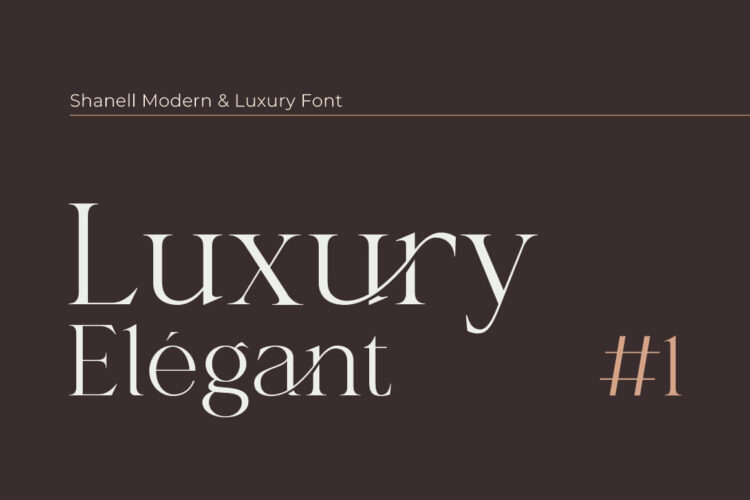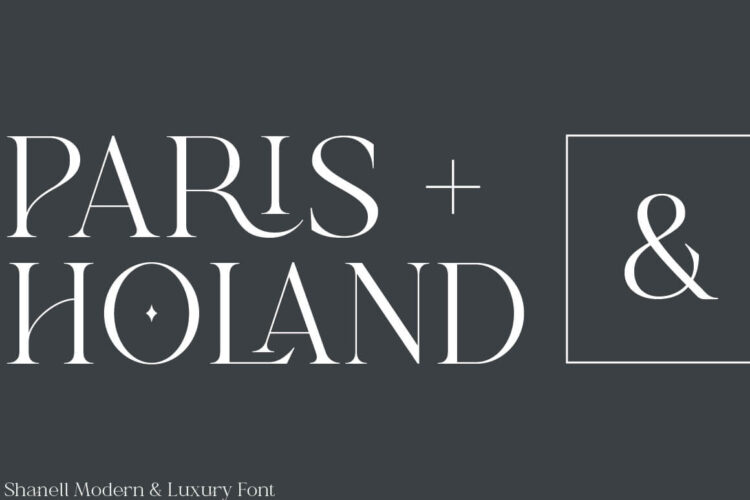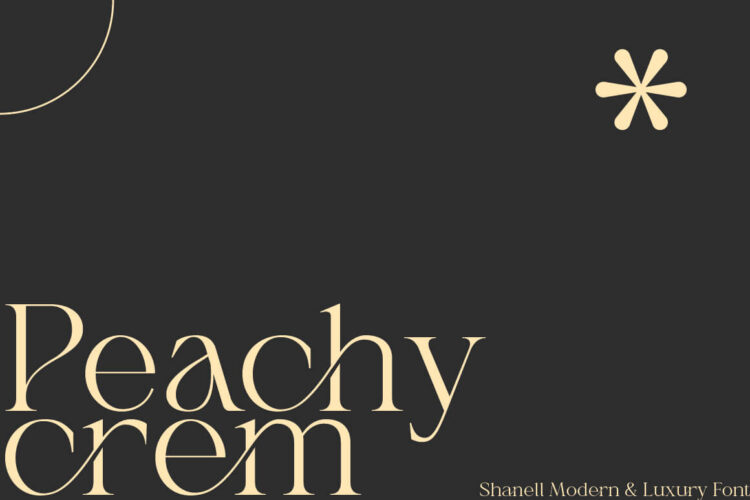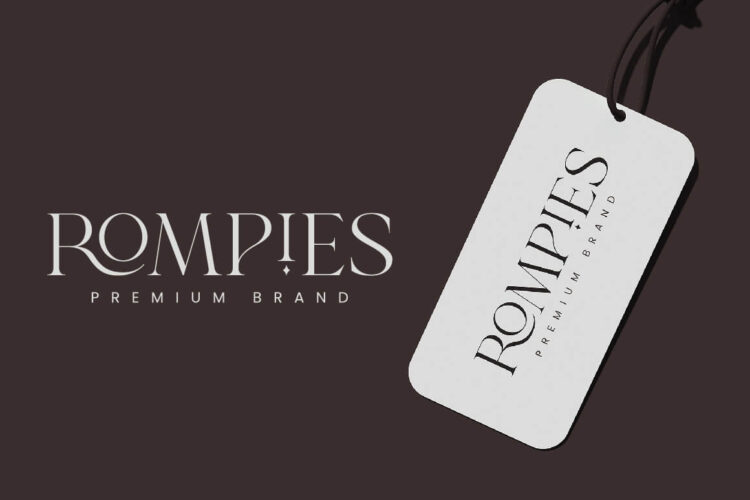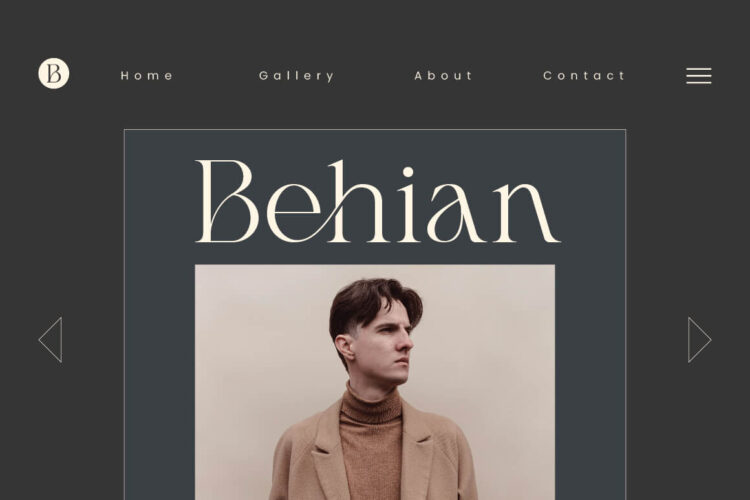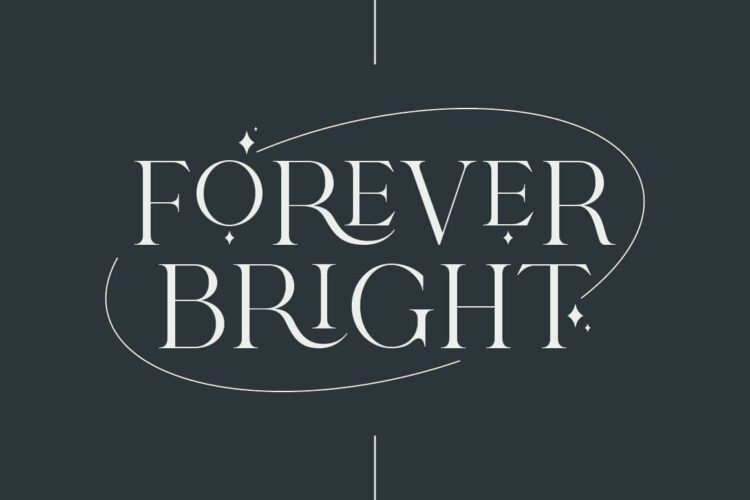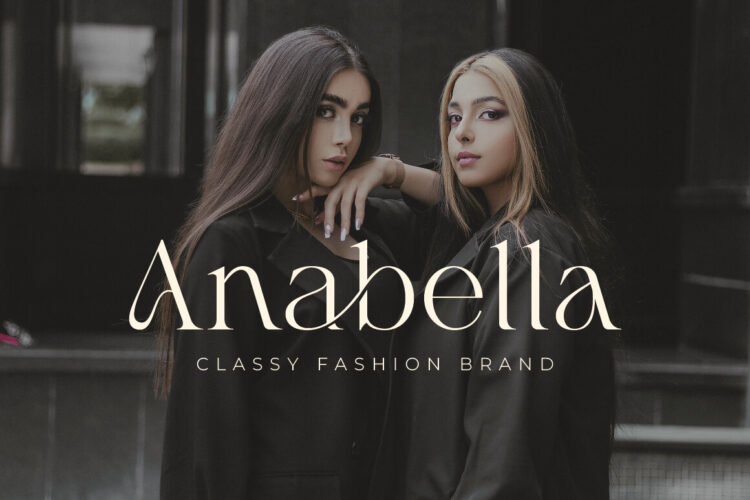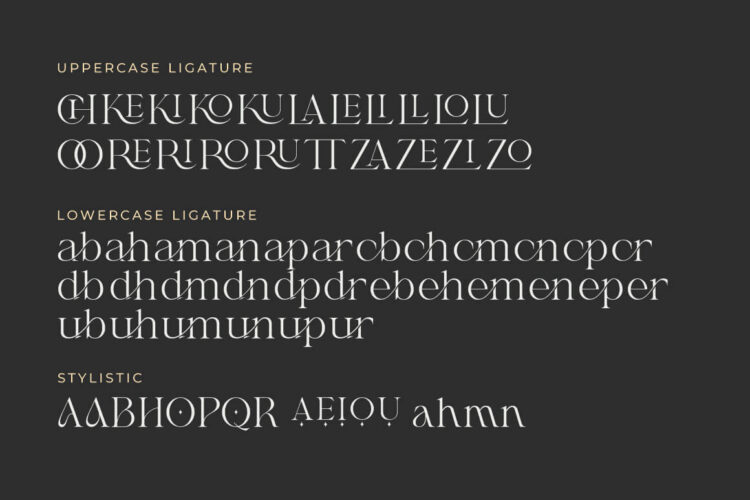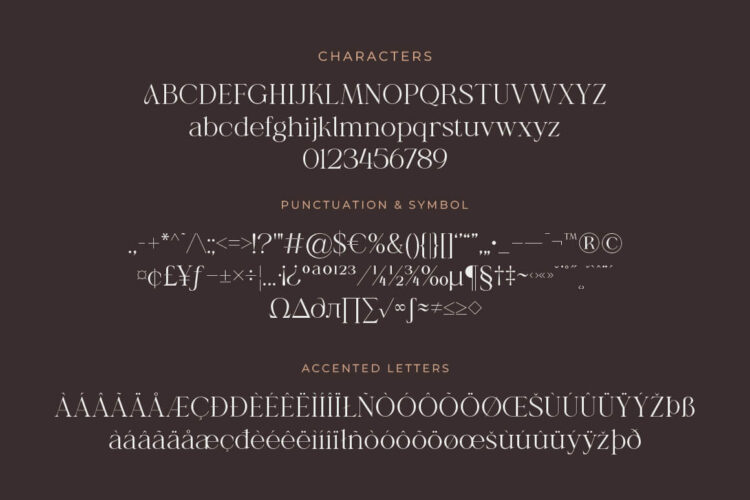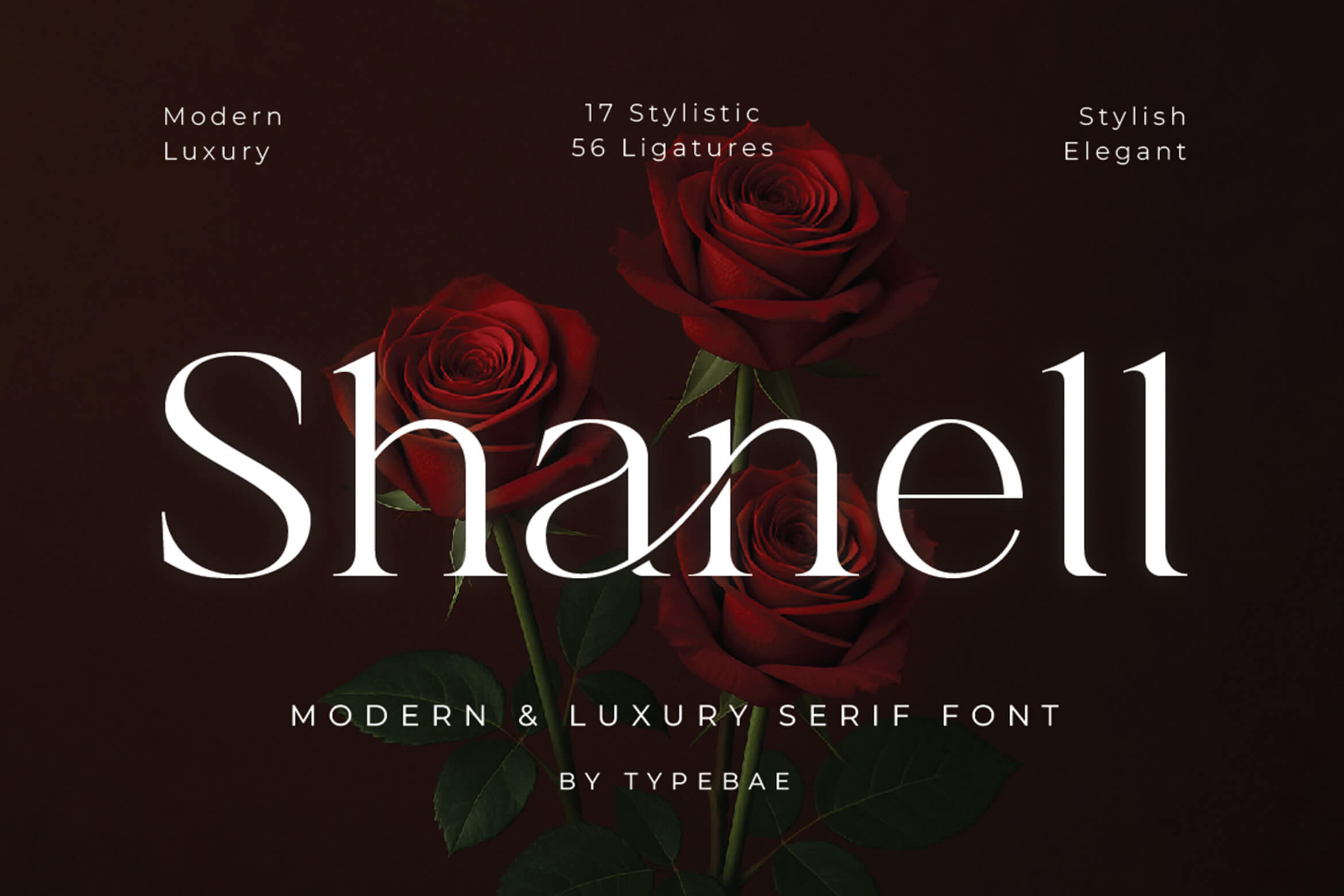
Shanell is a modern and luxury serif font crafted with elegance and versatility in mind. Featuring 56 ligatures and stylish alternates, it brings a refined, high-end look to your designs. Perfect for branding, fashion editorials, wedding invites, packaging, and logo design, Shanell combines clean lines with classic sophistication to make every project look timeless and premium.
– Uppercase & Lowercase
– 56 Ligatures & 17 Stylistic Alternates
– Numbers & Punctuation